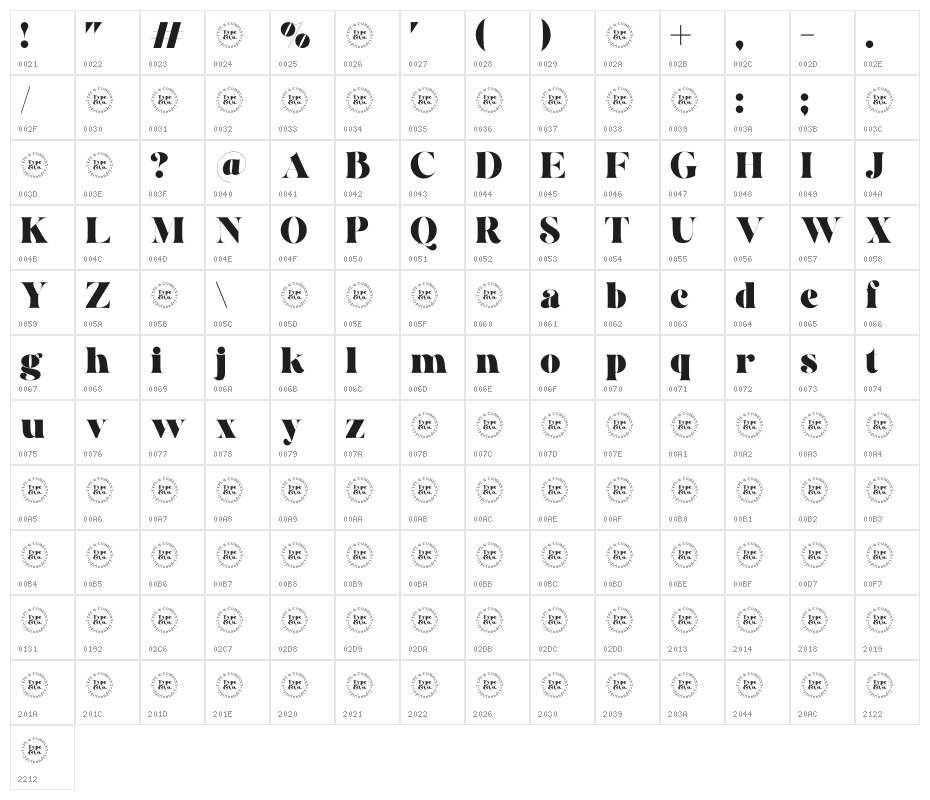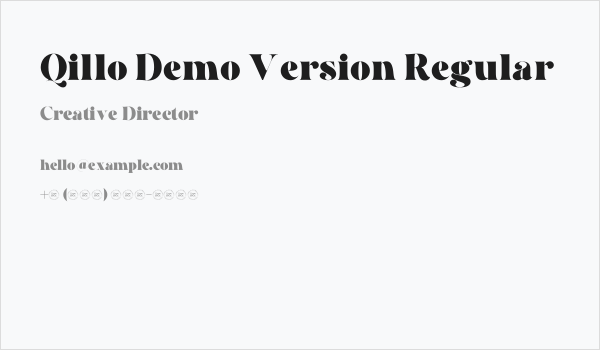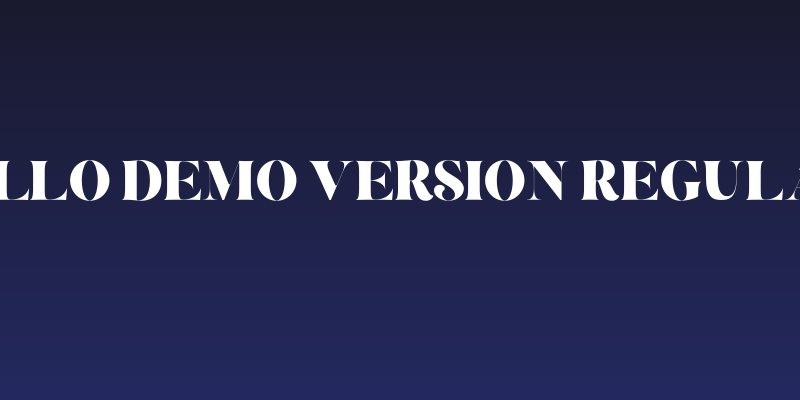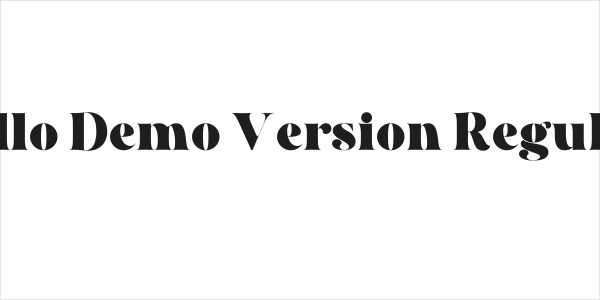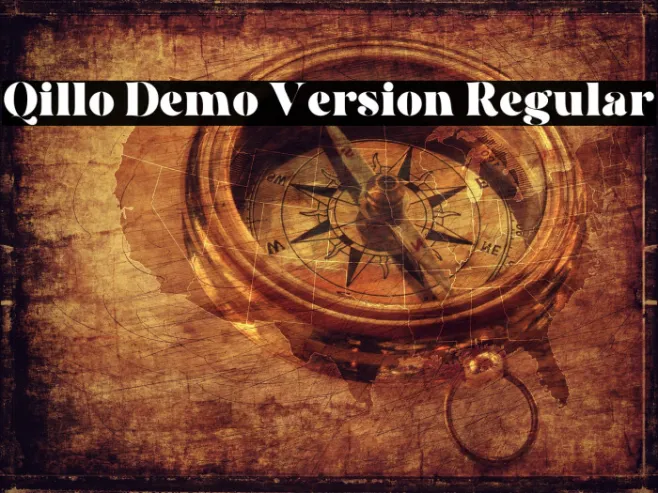
Qillo Demo Version Regular Font
Qillo Demo Version Regular Description
This font features a bold and dramatic style with high contrast between thick and thin strokes, creating a striking visual impact. The uppercase letters are particularly prominent, with sharp, angular serifs that add a sense of elegance and sophistication. The lowercase letters maintain a consistent style, with rounded forms that balance the sharpness of the uppercase. The numerals and special characters are designed to match the overall aesthetic, ensuring a cohesive look across all text elements. This font is ideal for making a statement and drawing attention.
Qillo